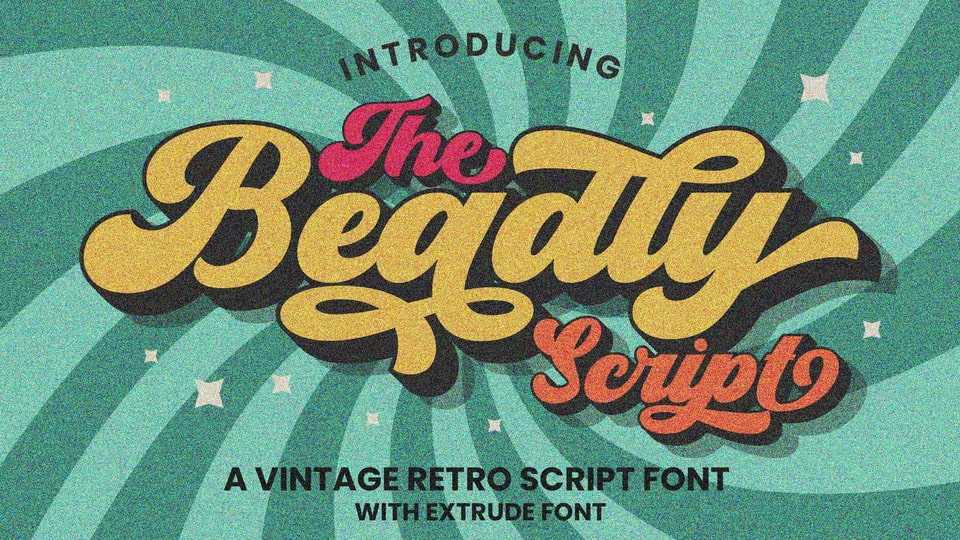
Download Beadly font, a retro bold script typeface that will bring you back to the 70s feel. Beadly font has the extrude version so you can create your retro effect font with ease.